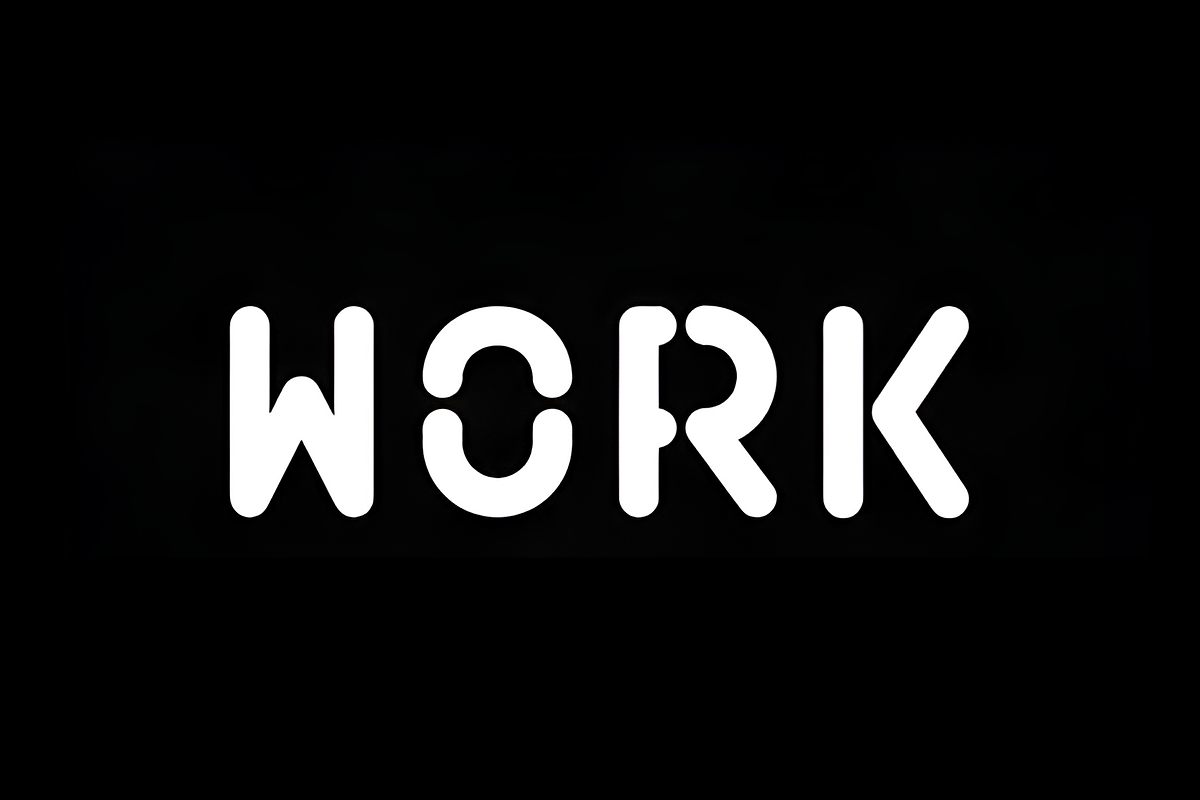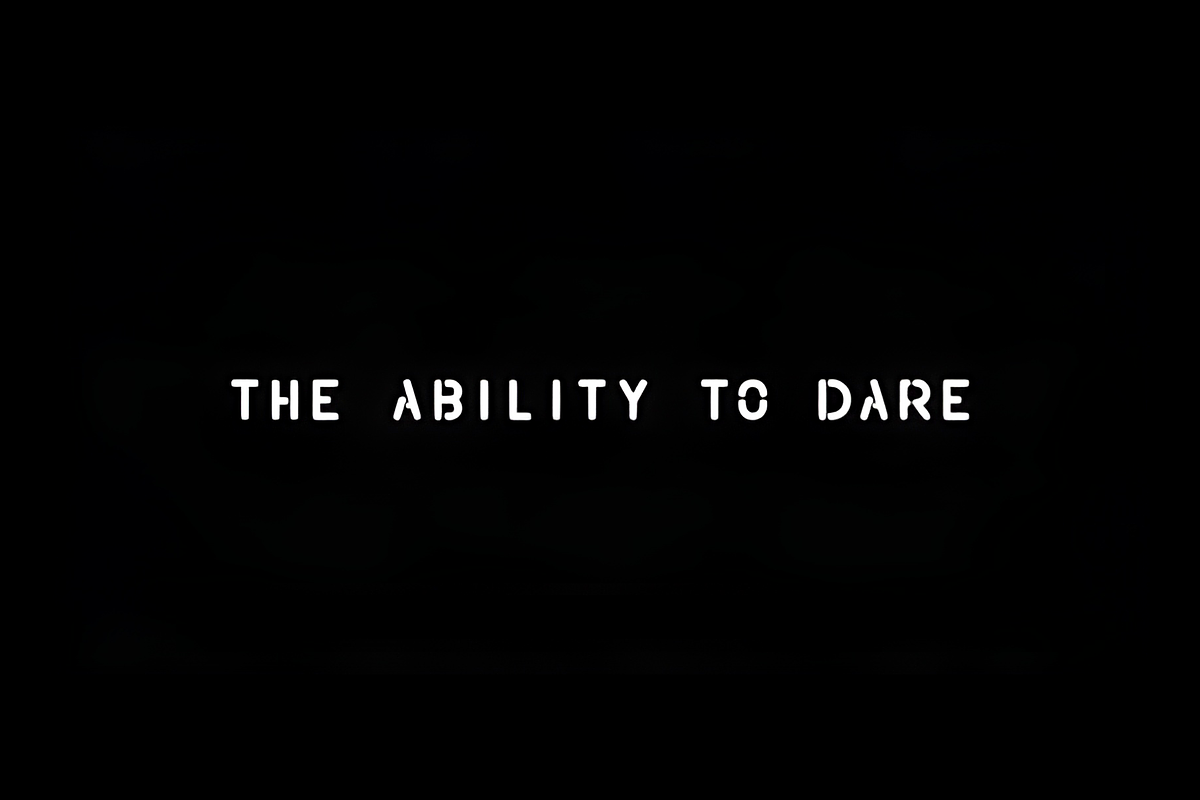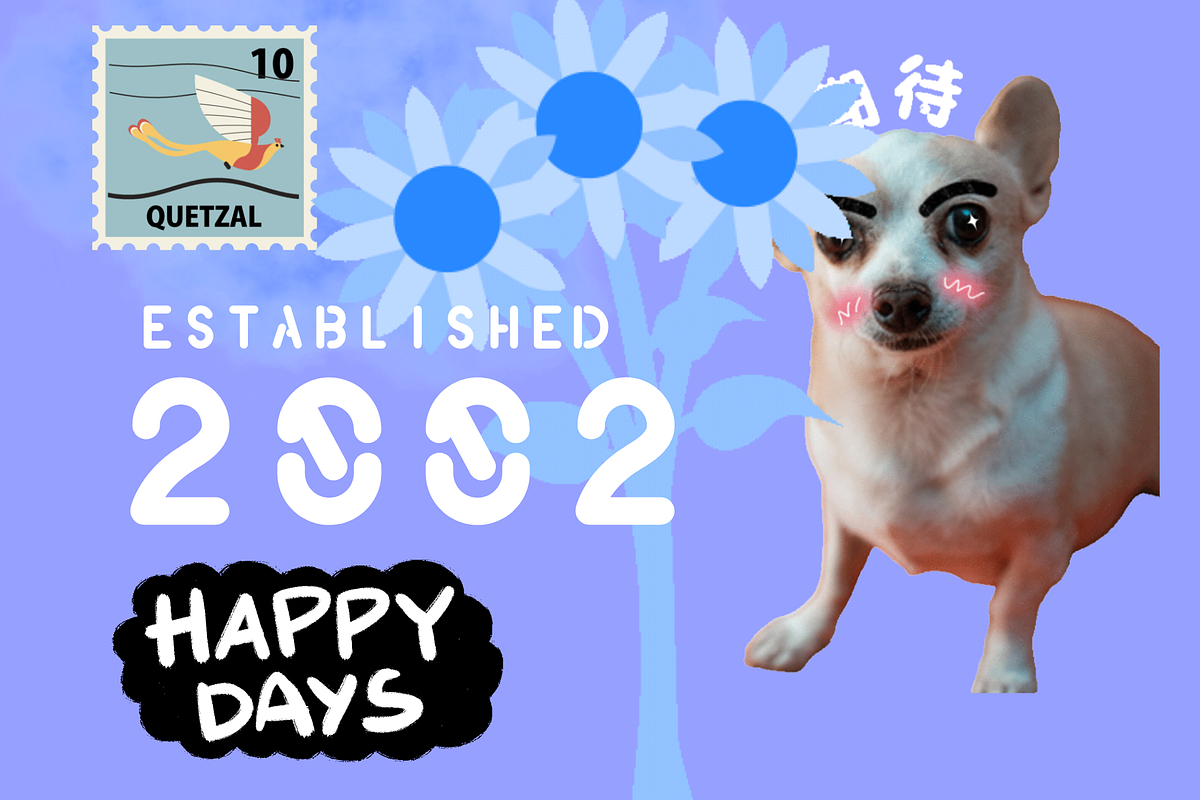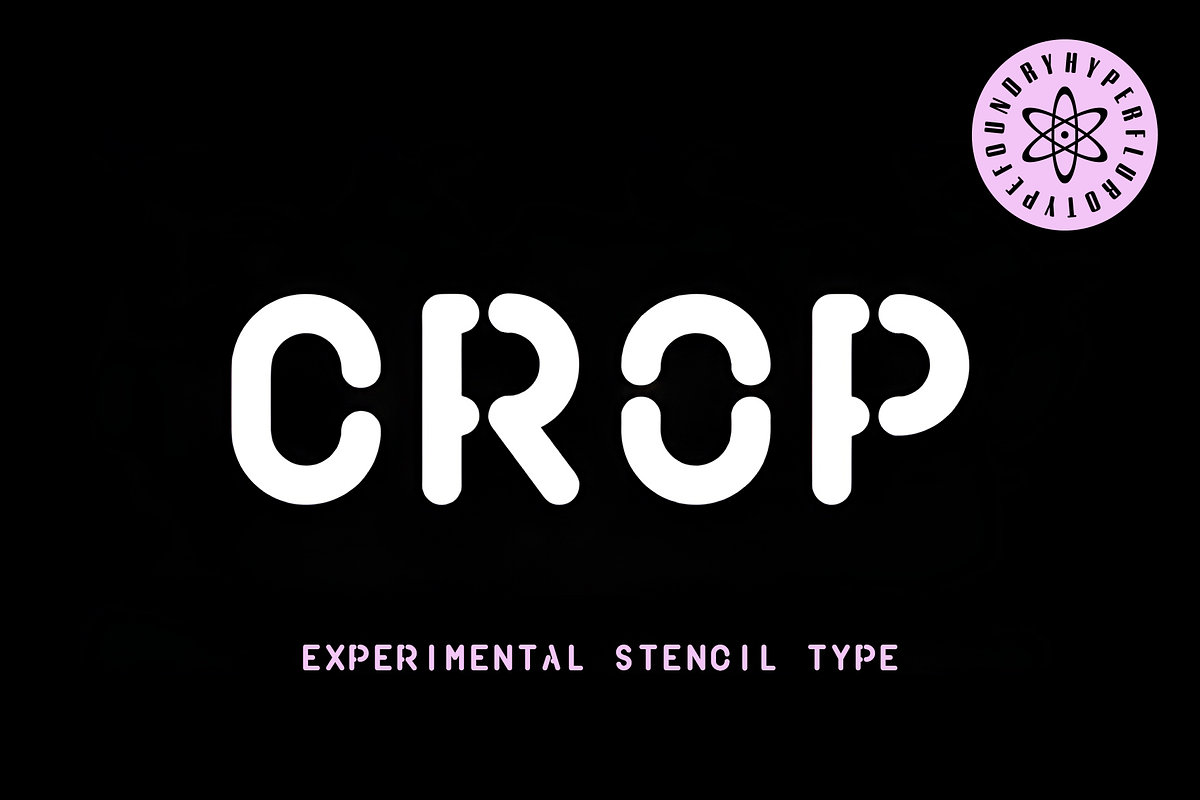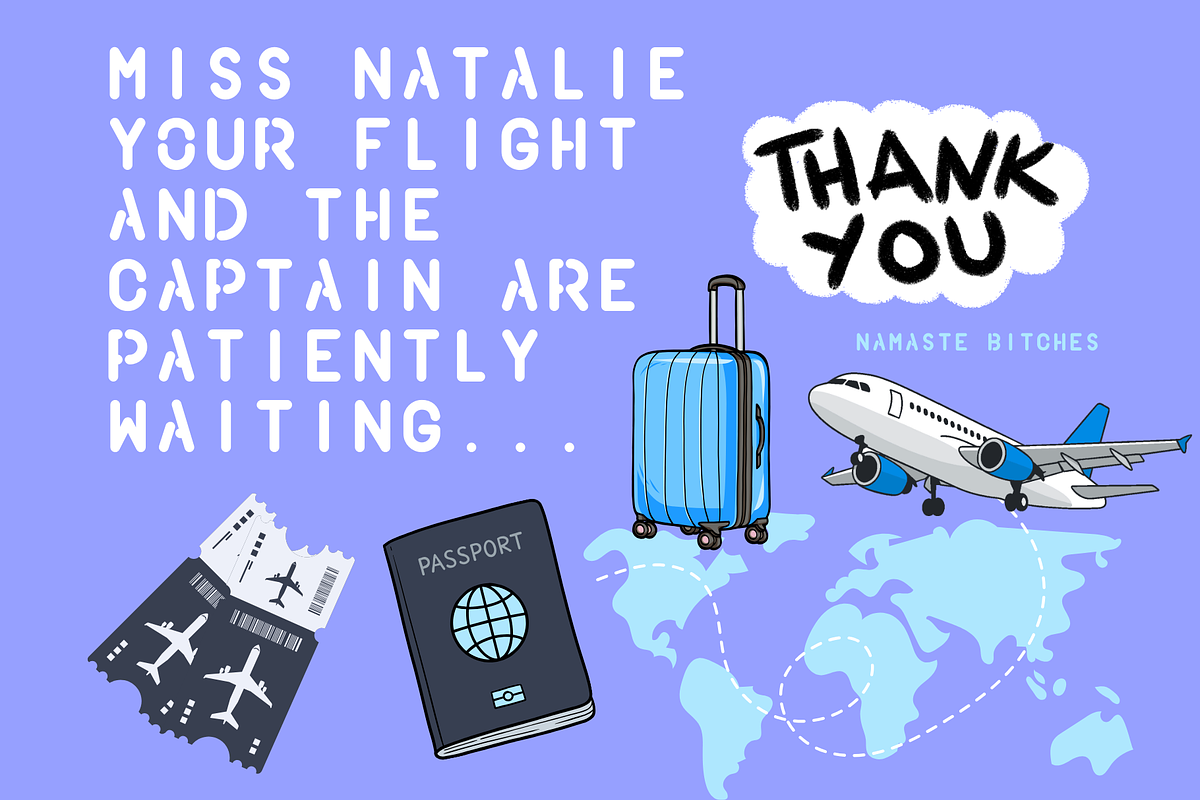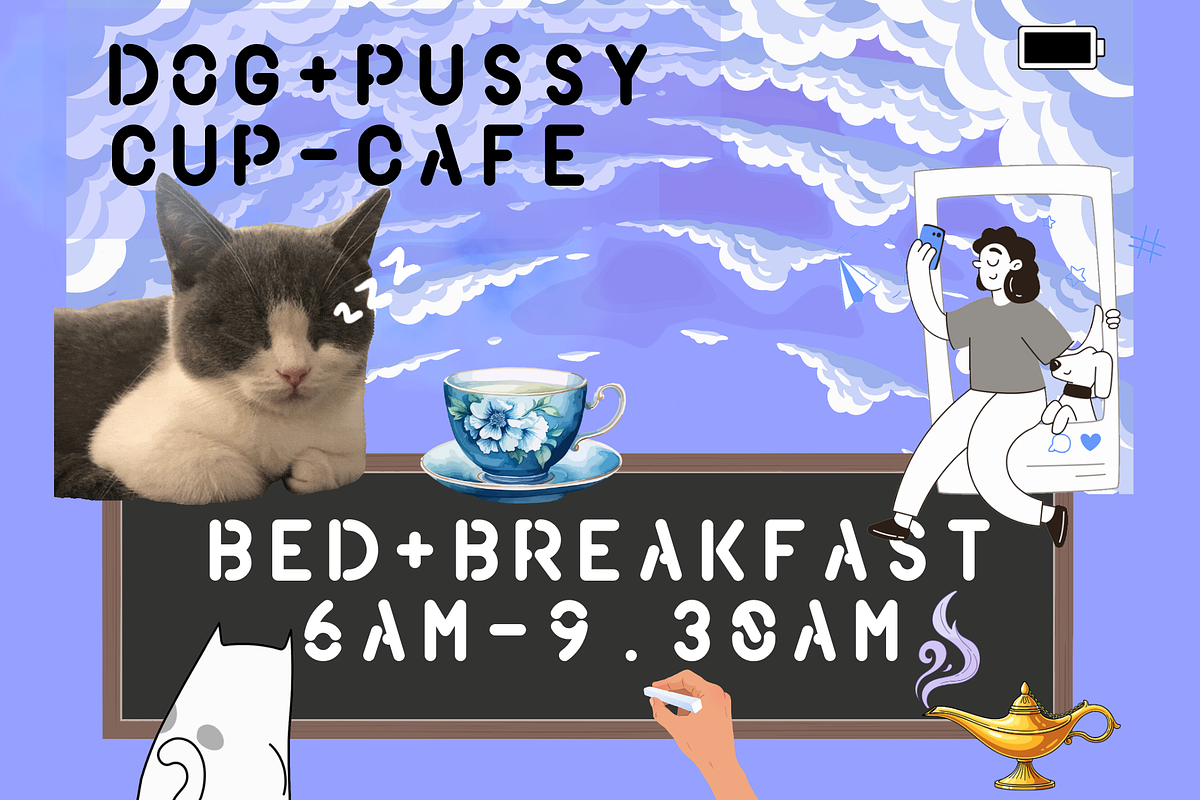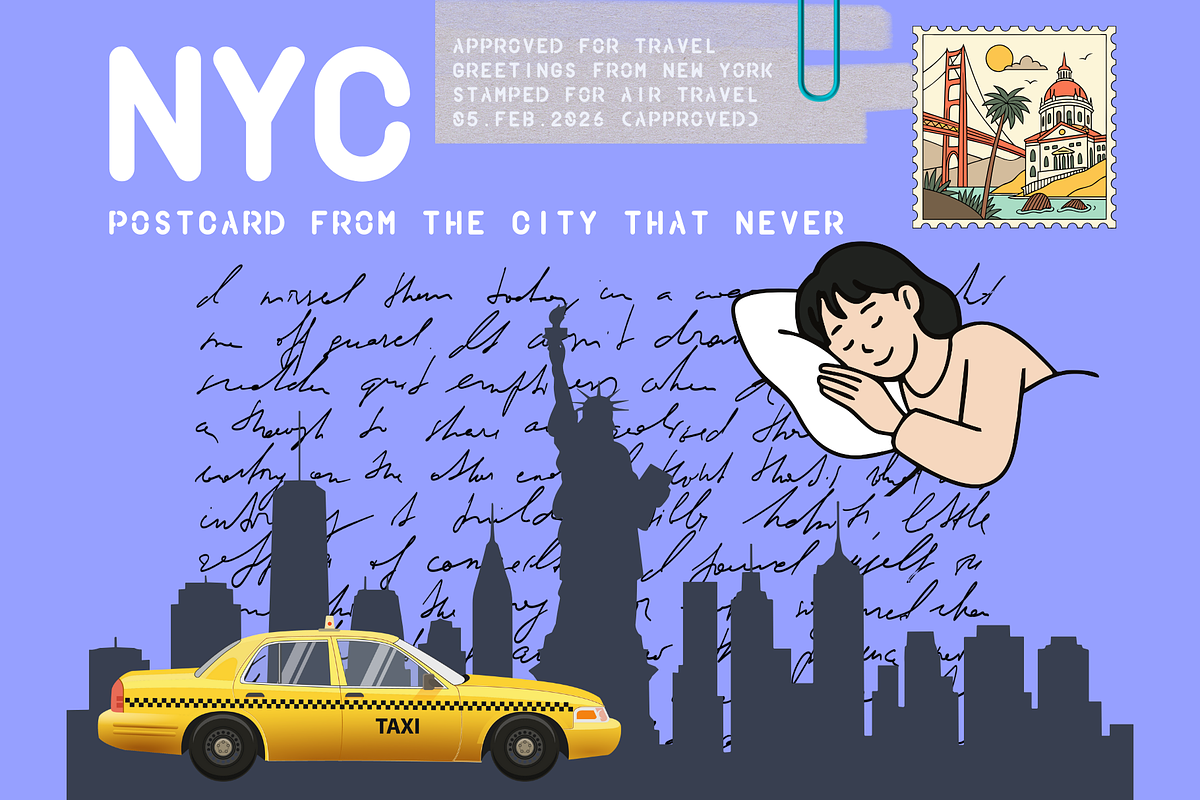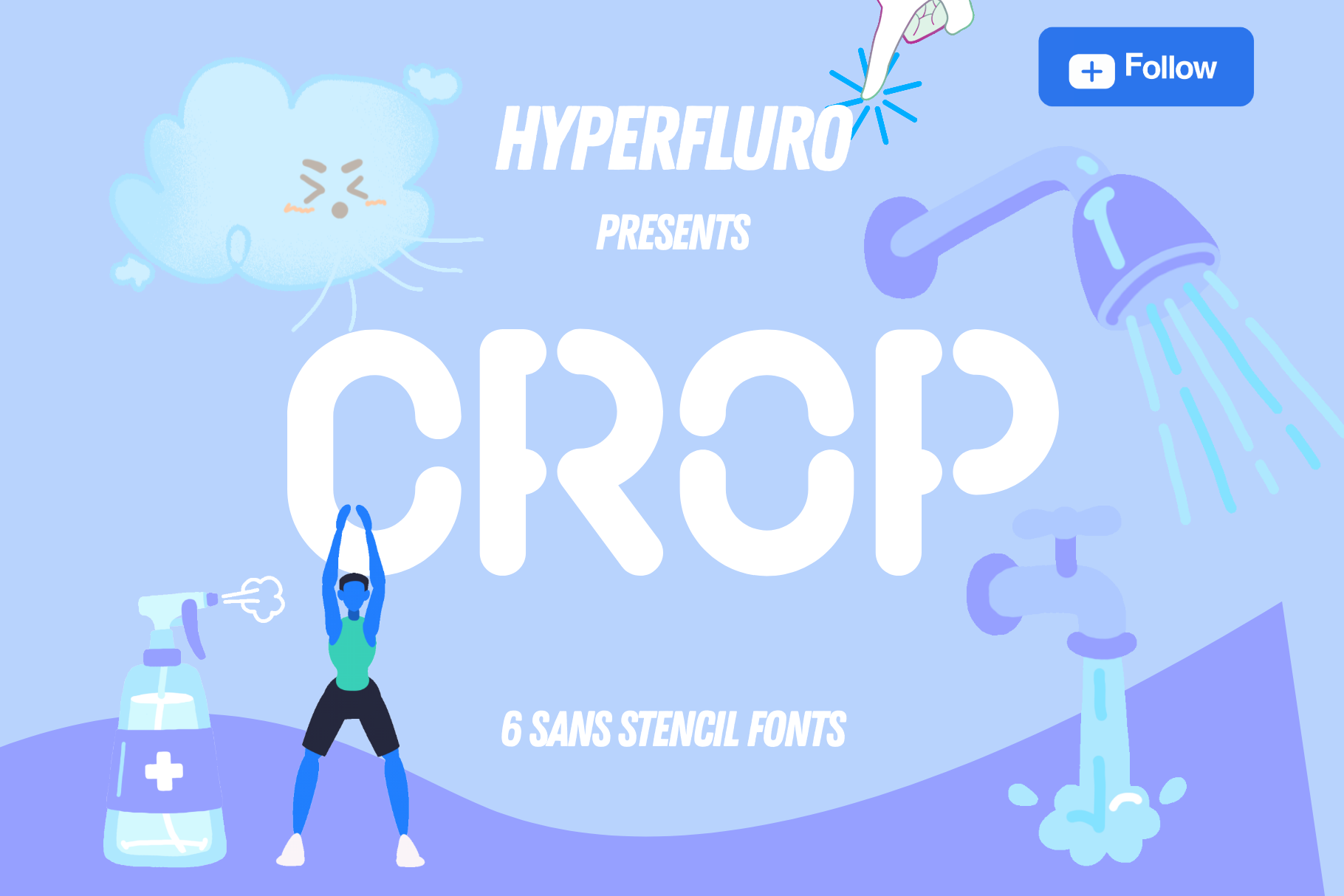
Crop Stencil Font Family 6 Fonts
Crop Stencil Font Family – Built for those who push limits and never back down.
Crop is a bold, modern stencil font designed for creators who demand impact and precision. Featuring four versatile weights, this type family balances sharp geometry with rugged stencil cuts, making it ideal for branding, posters, editorial design, and urban streetwear aesthetics.
Its clean yet aggressive letterforms evoke strength, resilience, and determination — perfect for projects that need to grab attention and hold it. Whether you're designing powerful headlines, bold logos, or dynamic layouts, Crop’s striking presence ensures your message cuts through the noise.
Four Weights – From light and agile to bold and commanding
Modern Stencil Design – Balancing precision with raw intensity
Versatile Use – Ideal for branding, editorial, and streetwear design
Attention-Grabbing Aesthetic – Perfect for impactful headlines and statement visuals
For those who live by ambition, resilience, and the refusal to settle — Crop is the font that works as hard as you do.